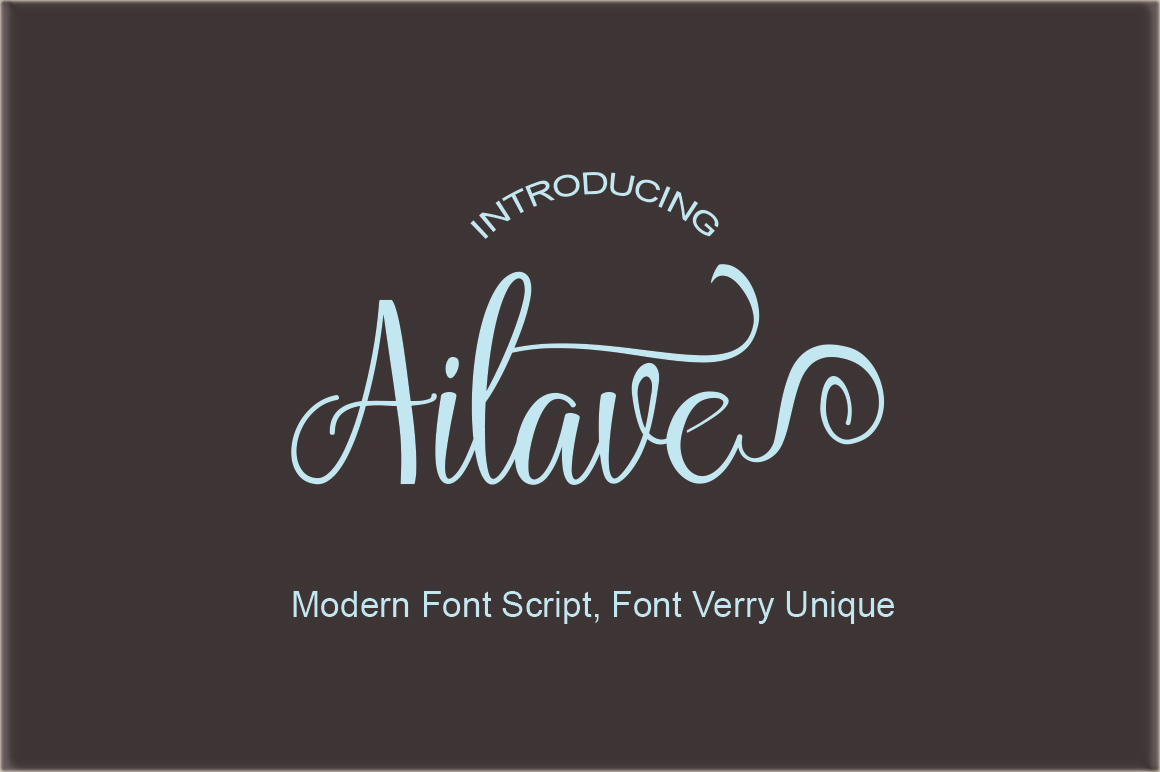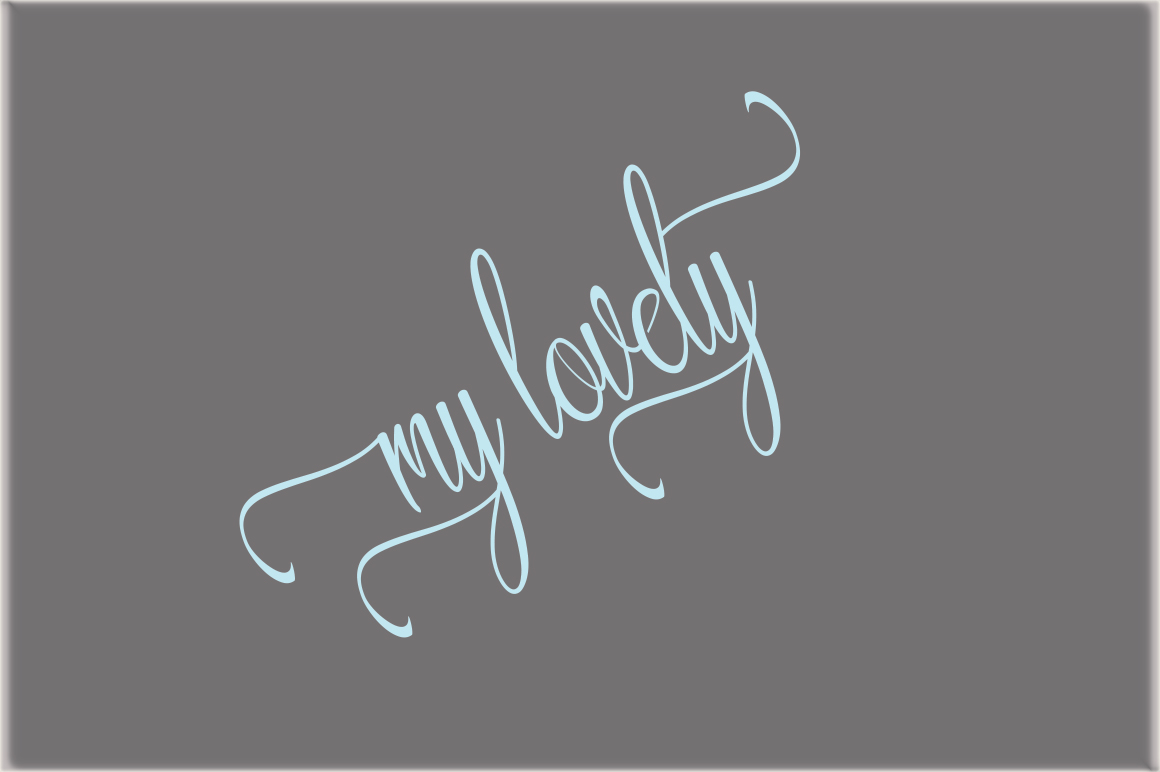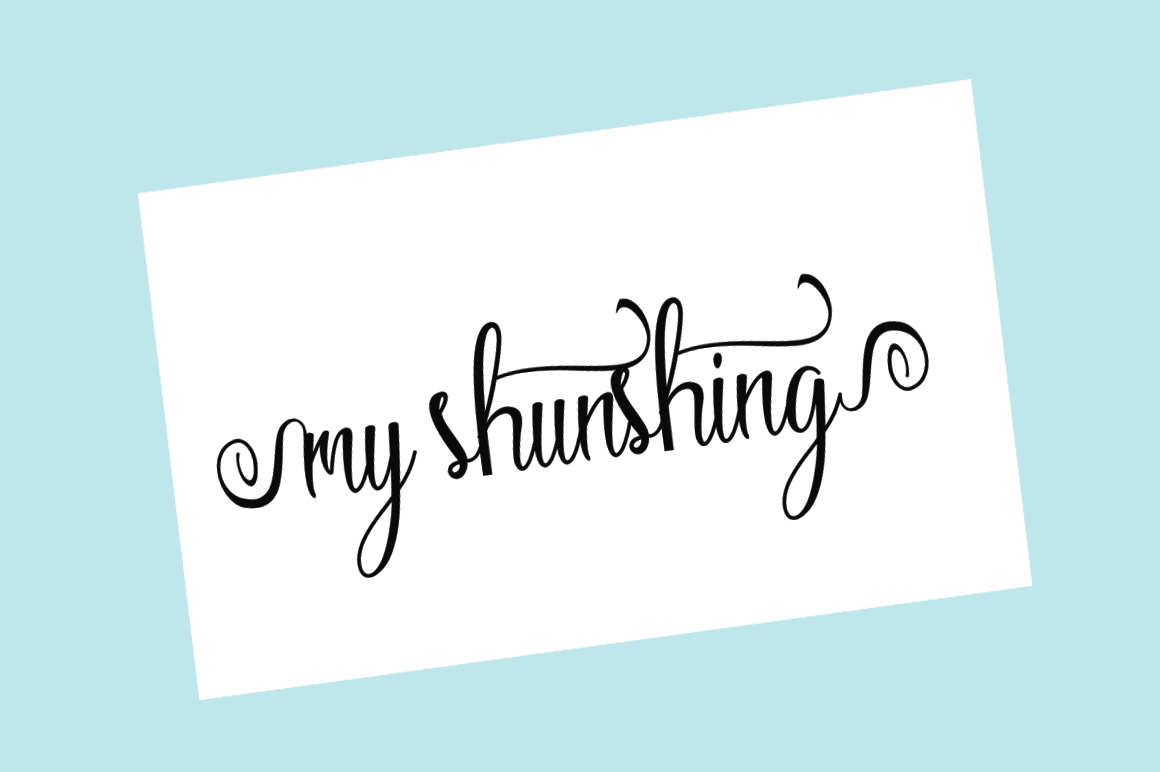
Ailave Font
About Ailave Font
Ailave is a stylish calligraphy script that features smooth, flowing characters. Easily add an elegant touch by adding stunning swashes.
The Ailave font is multi-purpose and can be used for many different types of design projects.